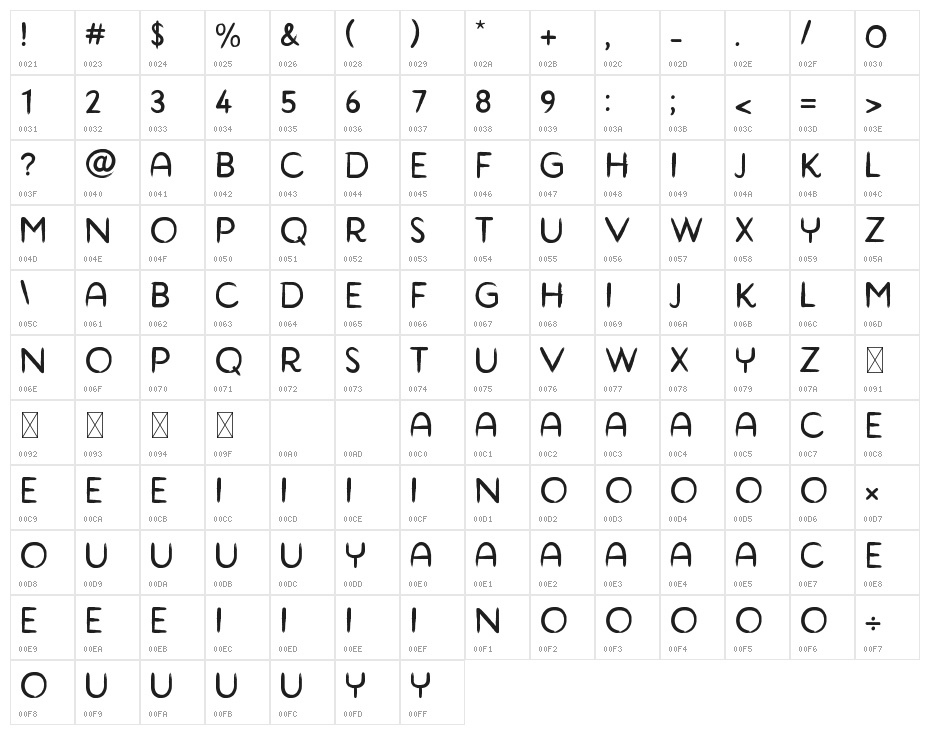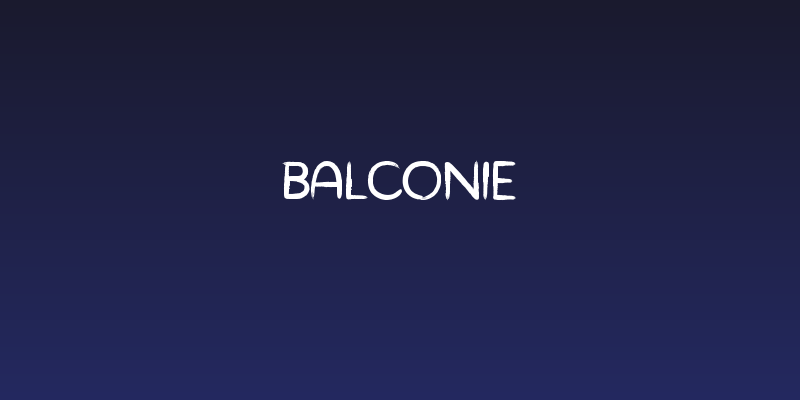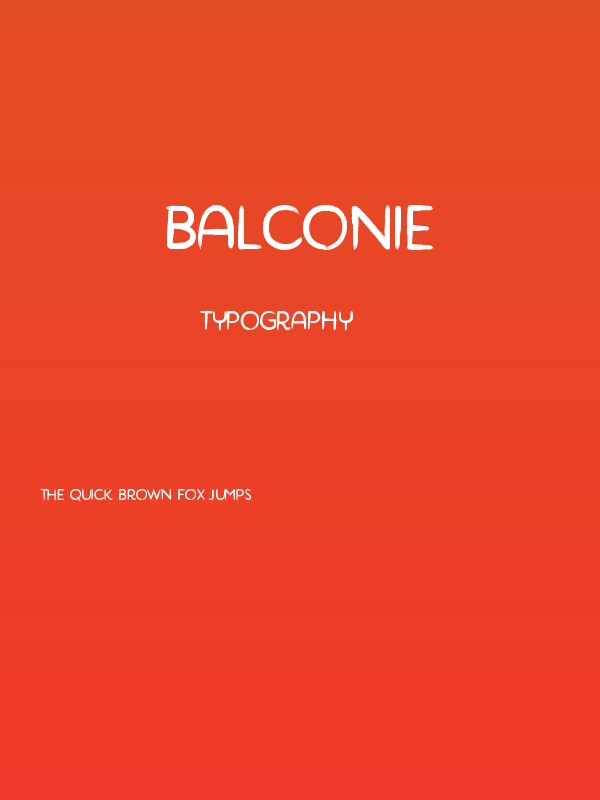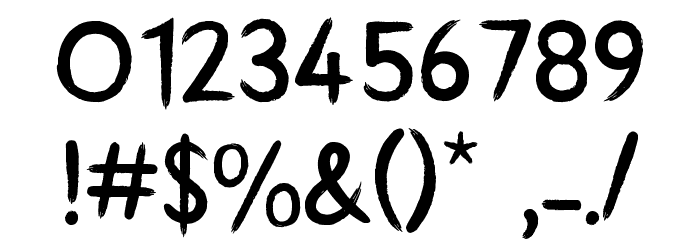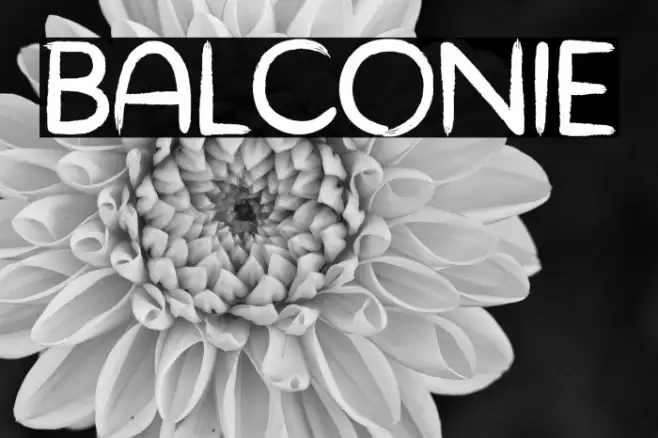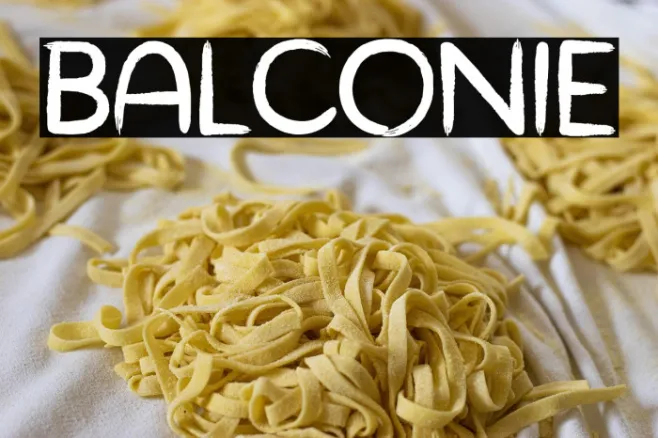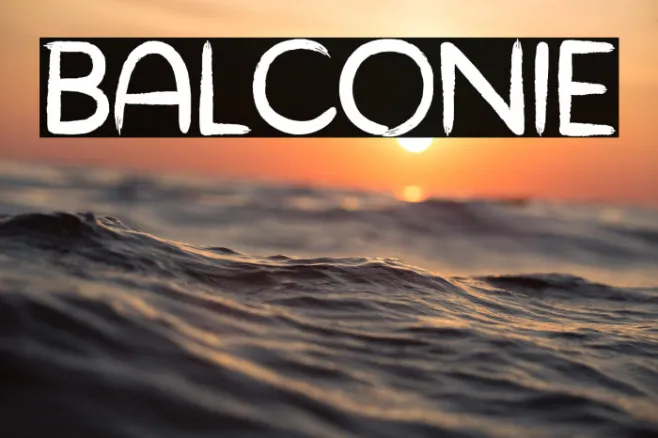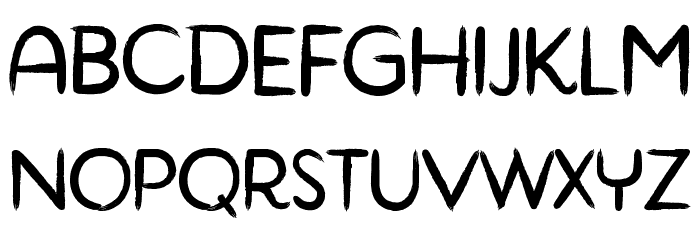
BALCONIE Font
BALCONIE Description
This font features a bold and expressive brush style, characterized by its dynamic strokes and artistic flair. The uppercase letters are bold and slightly condensed, with a hand-painted appearance that adds a personal touch. The numbers and special characters maintain this artistic style, making them stand out with their unique brush-like texture. The overall design is both modern and artistic, suitable for creative projects that require a touch of individuality and flair.
| Overall Style | Modern, Artistic |
| Proposed Projects | Ideal for branding, posters, and creative projects that require a bold, artistic touch. |